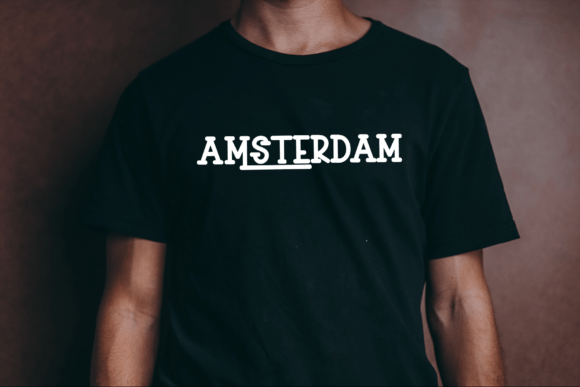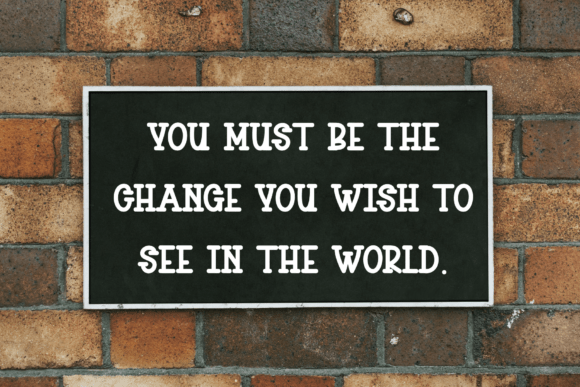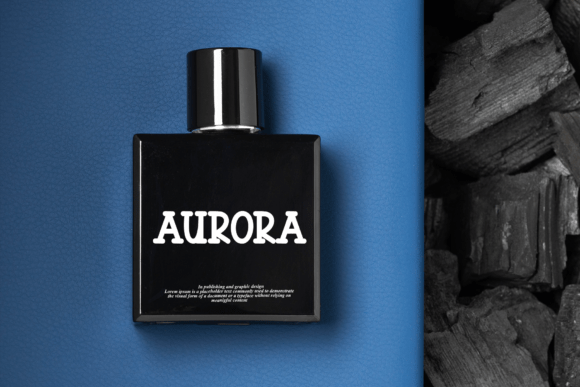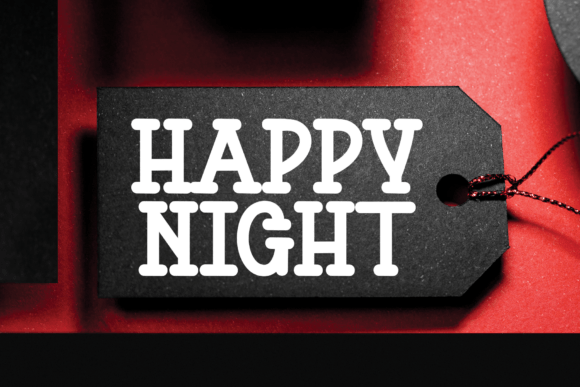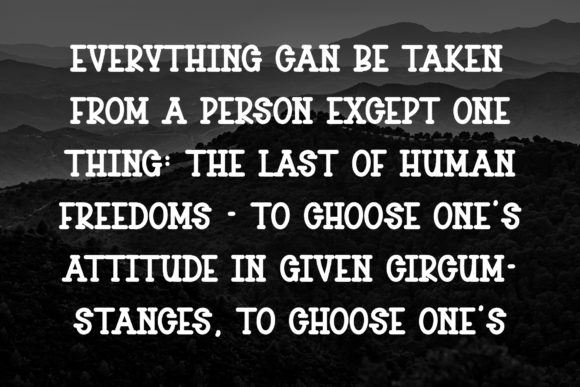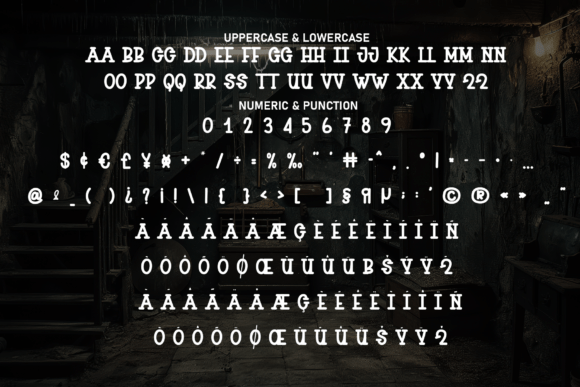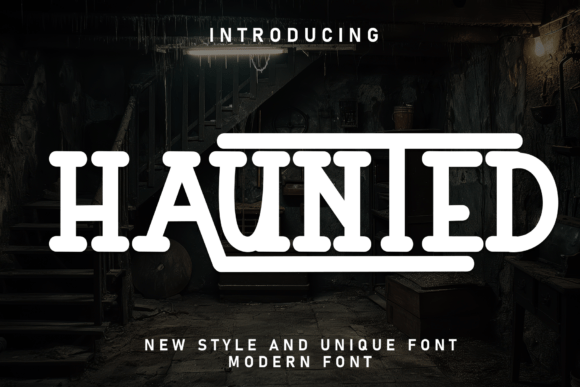
Unleash the Magic of Haunted Font: Elevate Your Designs with a Touch of Warmth and Clarity
Are you on the hunt for a font that can add a dash of personality to your designs without compromising on readability? Look no further than the Haunted Font, a casual and neat display font that’s designed to bring warmth and clarity to your projects. With its clean structure and approachable style, Haunted Font is the perfect choice for designers and crafters looking to create stunning branding, headlines, and everyday designs that resonate with their audience.
The Charm of Haunted Font
Haunted Font boasts balanced letterforms that offer a perfect blend of readability and charm. This makes it an excellent choice for designers who want to create a lasting impression on their audience. Whether you’re working on a logo, brochure, or social media post, Haunted Font ensures that every message feels genuine and inviting. The font’s clean structure and approachable style make it easy to read, even at smaller sizes, making it perfect for a wide range of applications.
What Makes Haunted Font Stand Out?
• Clean Structure: Haunted Font features a clean and well-defined structure that gives it a crisp and modern look. This makes it perfect for designs that require a professional touch.
• Approachable Style: The font’s approachable style makes it easy to connect with your audience. It’s friendly, yet sophisticated, making it perfect for a wide range of design projects.
• Balanced Letterforms: The balanced letterforms in Haunted Font ensure that every character is easy to read and understand. This makes it perfect for designs that require a high level of readability.
• Warmth and Clarity: Haunted Font is designed to bring warmth and clarity to your designs. Its unique style ensures that your message is conveyed in a clear and concise manner.
Haunted Font is a versatile font that’s perfect for designers and crafters who want to create stunning designs that stand out from the crowd. Whether you’re working on a branding project, creating headlines for a magazine, or designing social media posts, Haunted Font is the perfect choice. Its clean structure and approachable style make it easy to use and pair with other fonts, ensuring that your designs are always on point.
Tips for Using Haunted Font
• Pair it with Other Fonts: Haunted Font pairs well with other fonts, making it easy to create stunning designs that require multiple font styles.
• Use it for Headlines: Haunted Font is perfect for headlines and titles. Its clean structure and approachable style make it easy to read and understand.
• Experiment with Colors: Haunted Font looks great in a variety of colors. Experiment with different colors to find the perfect combination for your design.
• Keep it Simple: Don’t overcomplicate your design. Keep it simple and use Haunted Font to add a touch of personality to your project.
In conclusion, Haunted Font is a versatile and stylish font that’s perfect for designers and crafters who want to create stunning designs that resonate with their audience. Its clean structure, approachable style, and balanced letterforms make it easy to read and understand, making it perfect for a wide range of design projects. Whether you’re working on a branding project, creating headlines, or designing social media posts, Haunted Font is the perfect choice. So why wait? Download Haunted Font today and unleash the magic of this amazing font!